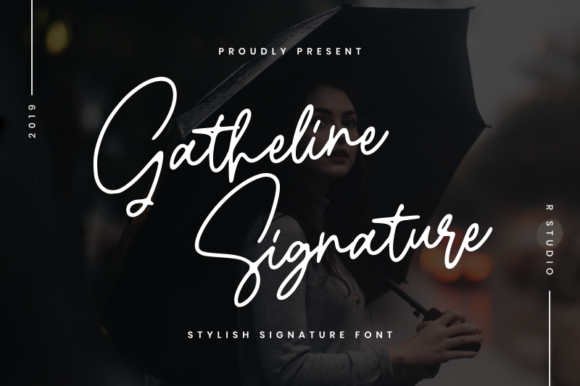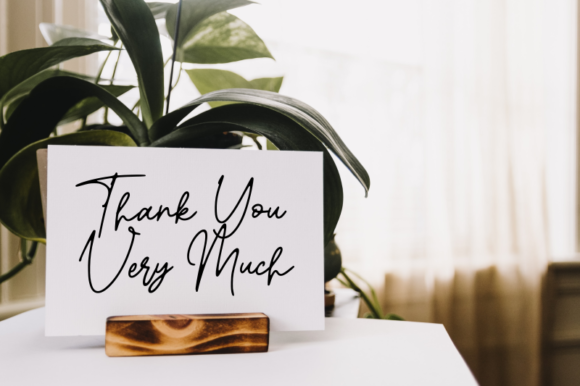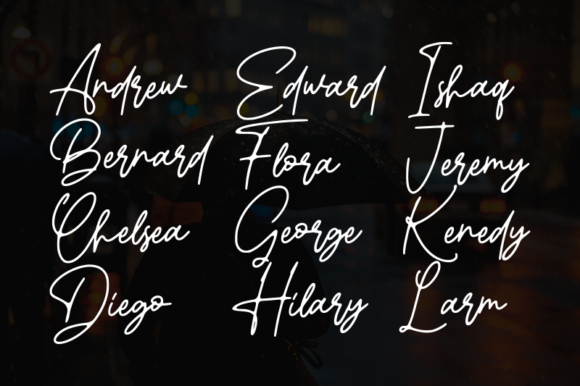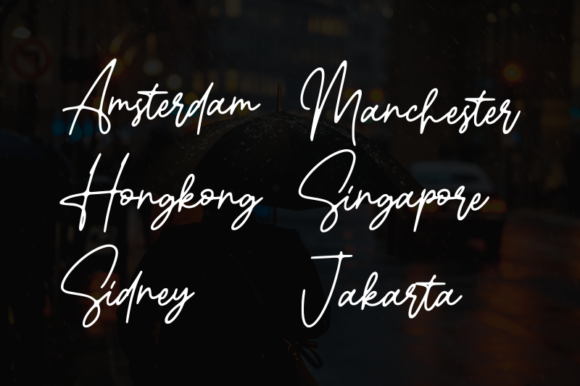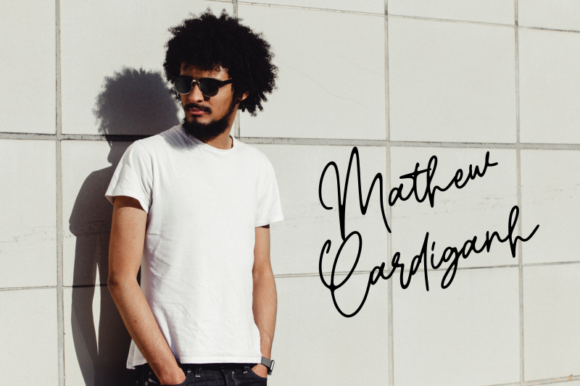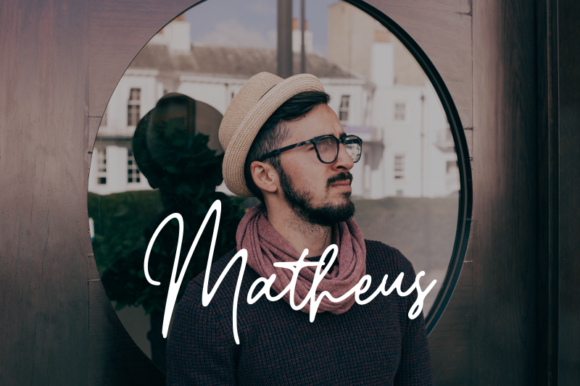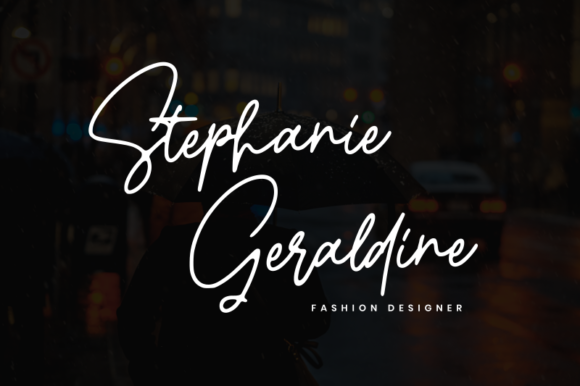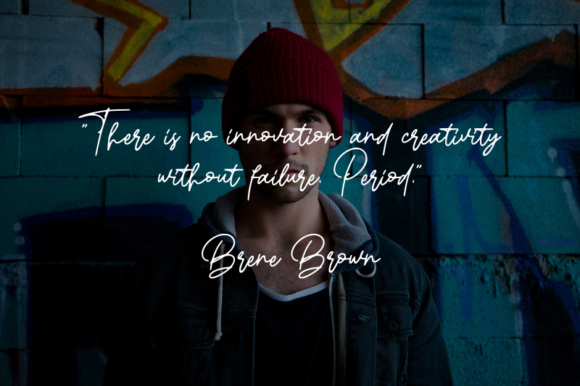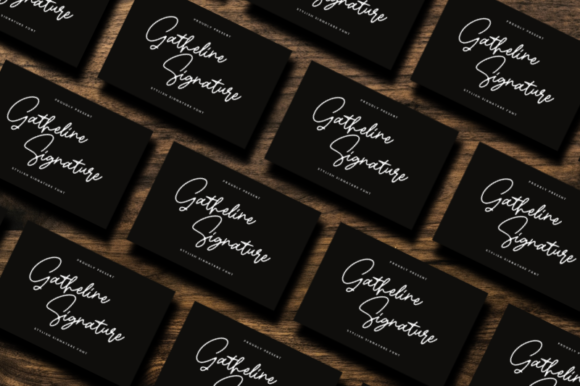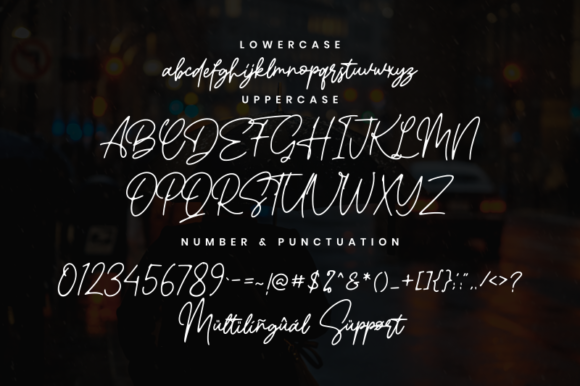
Gatheline Font
About Gatheline Font
Gatheline is a charming and sophisticated script font with a unique approach to lettering. It will add that authentic touch to any design idea!